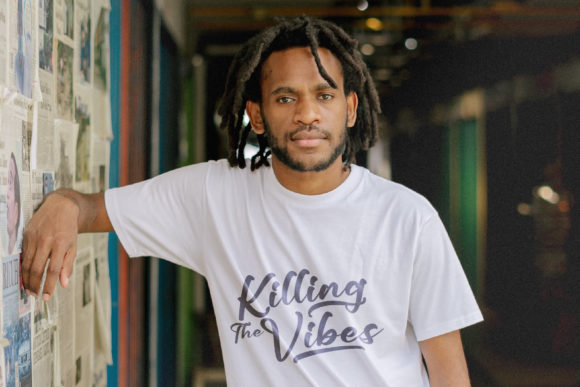
Ashleigh Patty Font
db-ku.com - Script & Handwritten -- Ashleigh Patty – Modern Calligraphy Font suitable for logos, branding projects, homeware designs, product packaging, mugs, quotes, posters, shopping bags, t-shirts, book covers, name cards, invitation cards, greeting cards, labels, photography, watermark, special events, and all your other lovely projects that need a beautiful script taste.